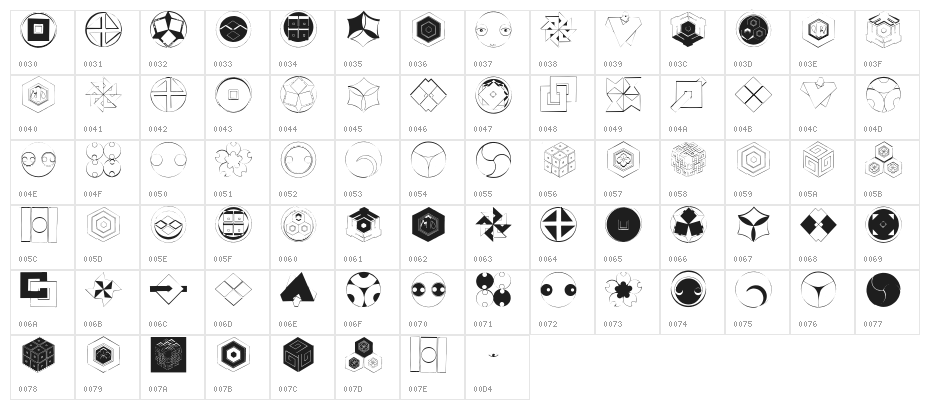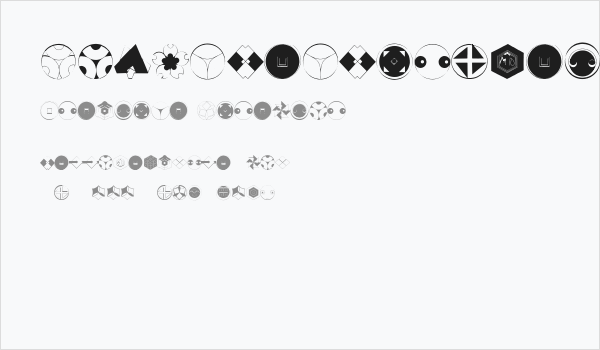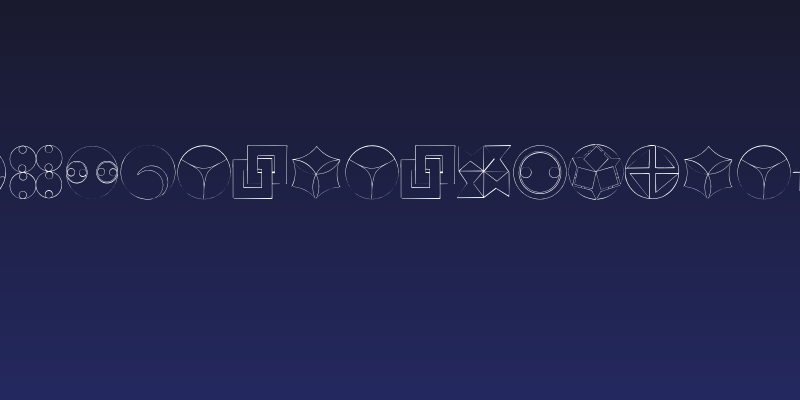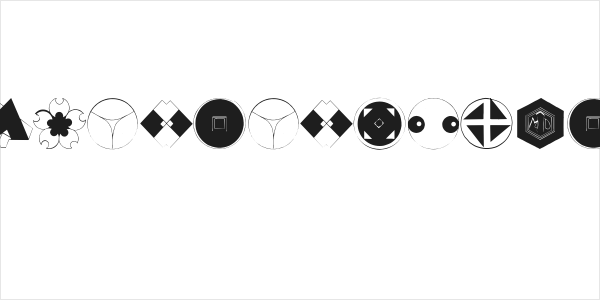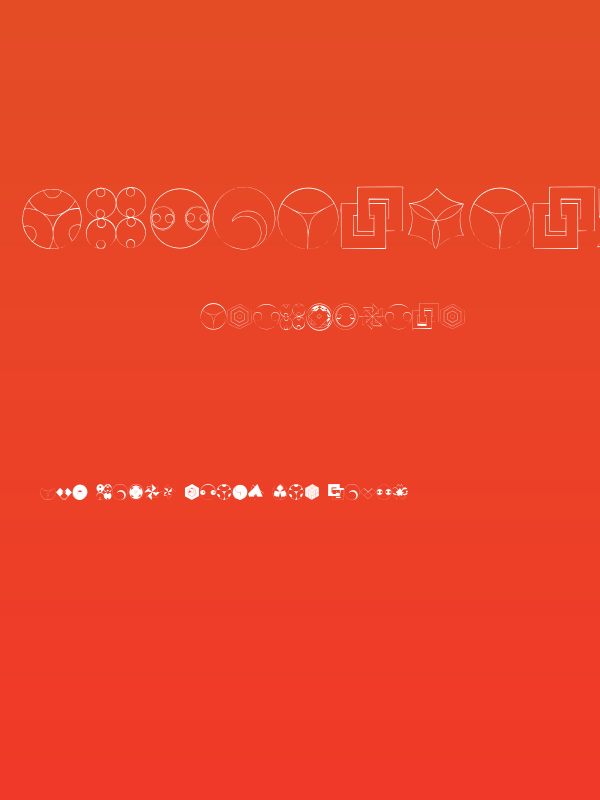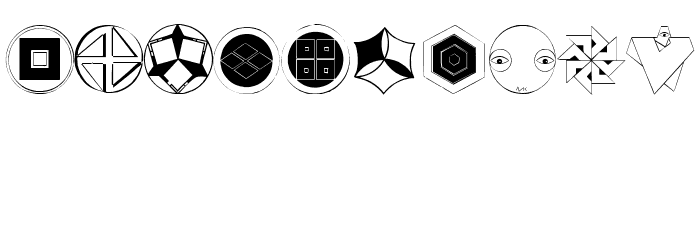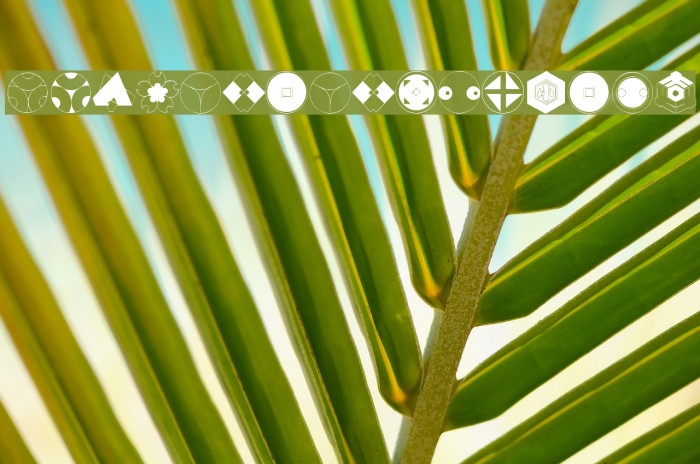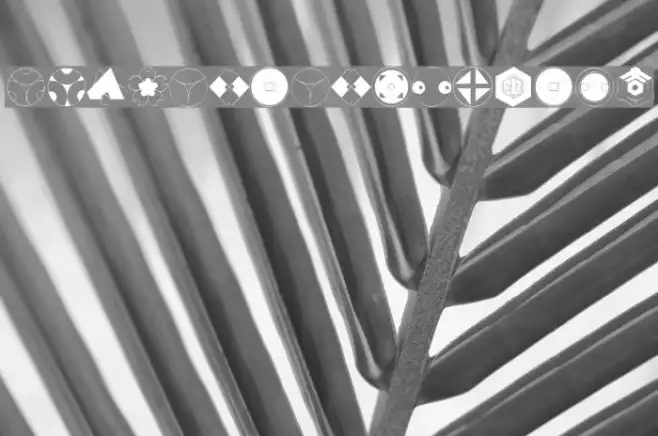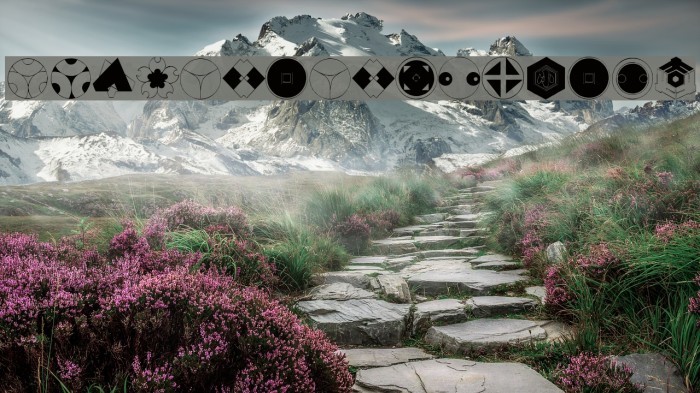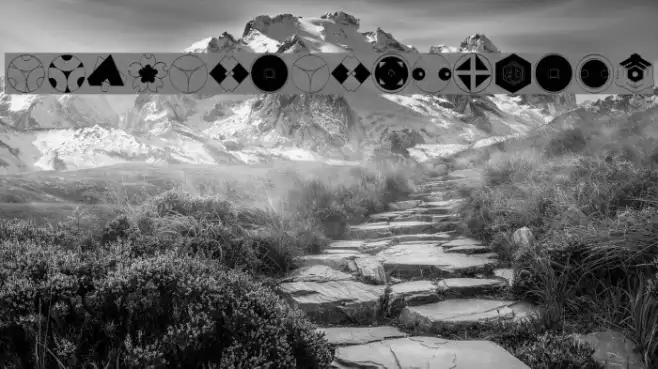
MonsTheThirdbeta Font
A highly decorative and abstract dingbat font featuring a wide variety of geometric shapes, optical illusions, and stylized symbols. The glyphs include circles, hexagons, cubes, arrows, and intricate patterns, with both filled and outlined forms, offering a futuristic and playful aesthetic.
| Overall Style | Decorative, Futuristic, Abstract |
| Use Case | Logos, Icons, Decorative elements, Posters |
| Proposed Projects | Posters, album covers, branding for tech or creative industries, decorative dividers, icon sets, visual puzzles. |